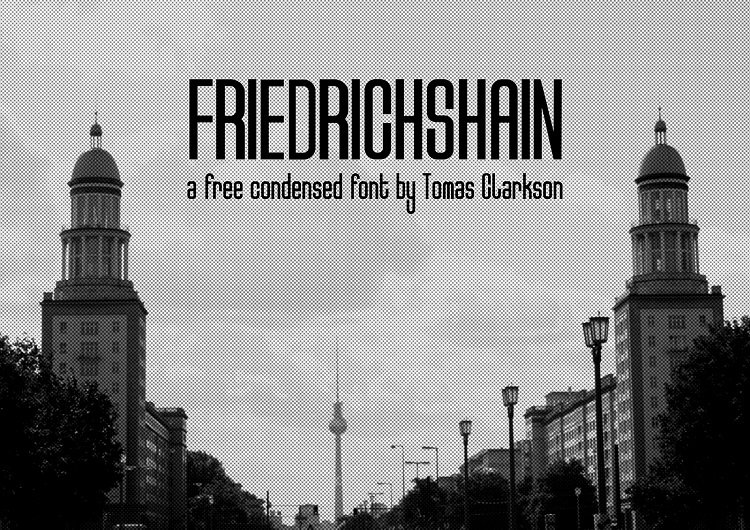
Friedrichshain Typeface
Friedrichshain – A Classy Sans Serif Typeface. Friedrichshain designed and shared by Tomas Clarkson, a designer comes from Berlin, Germany. Friedrichshain is a condensed typeface by Tomas Clarkson. It takes its name from the built up area of East Berlin, where tall, Soviet Style buildings dominate the skyline. It can be used in all advertising materials, perfect for: branding, business card, packaging, flyer, logo, photos, books, packaging, posters, etc …